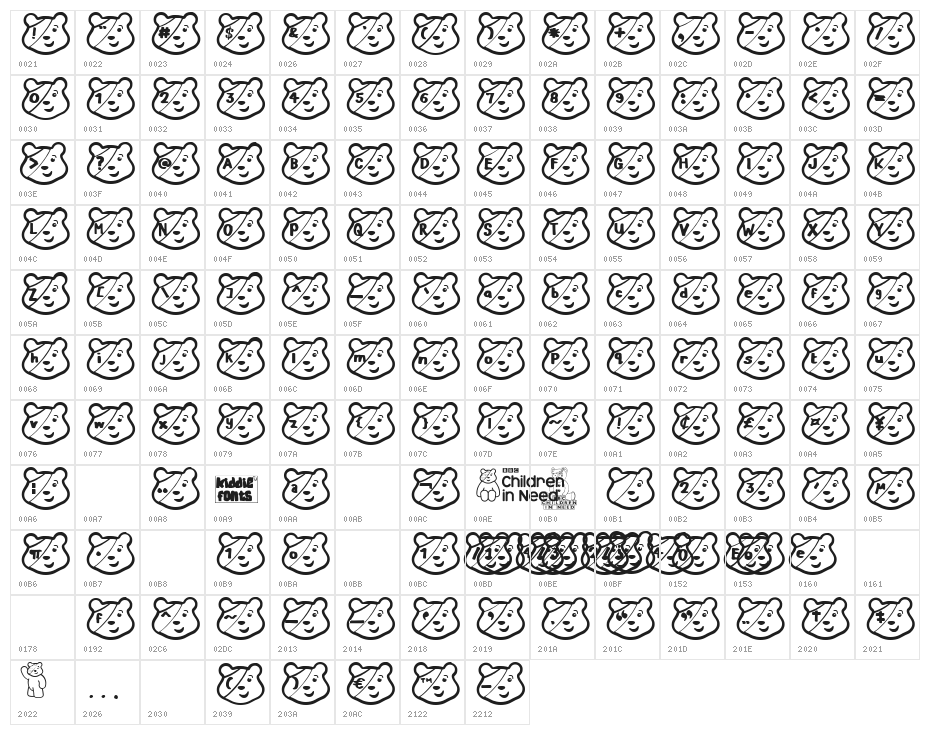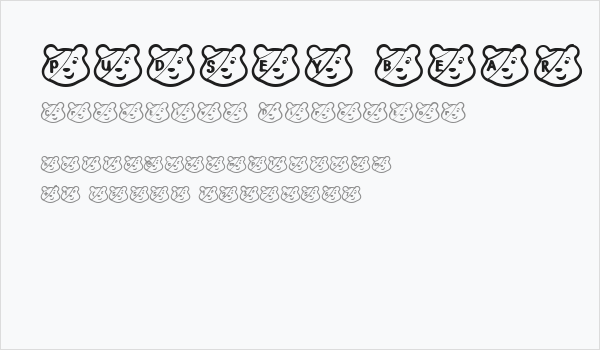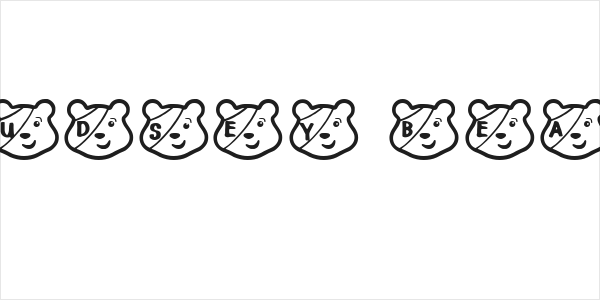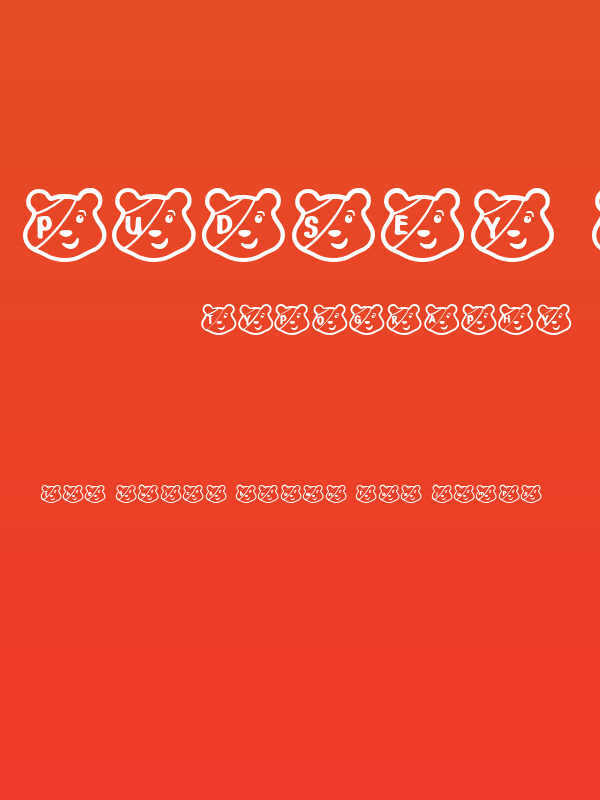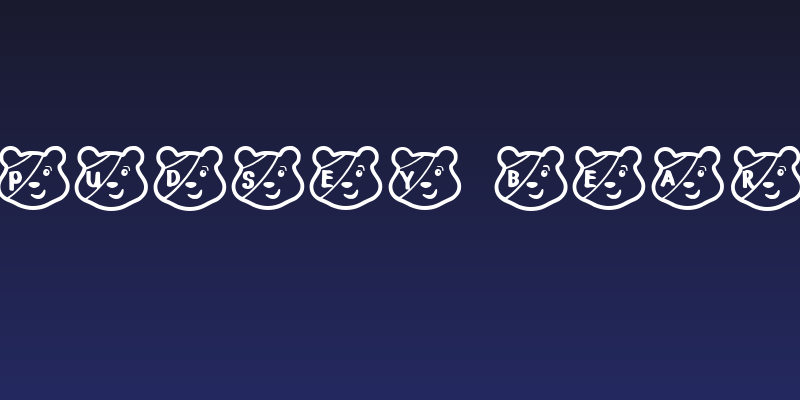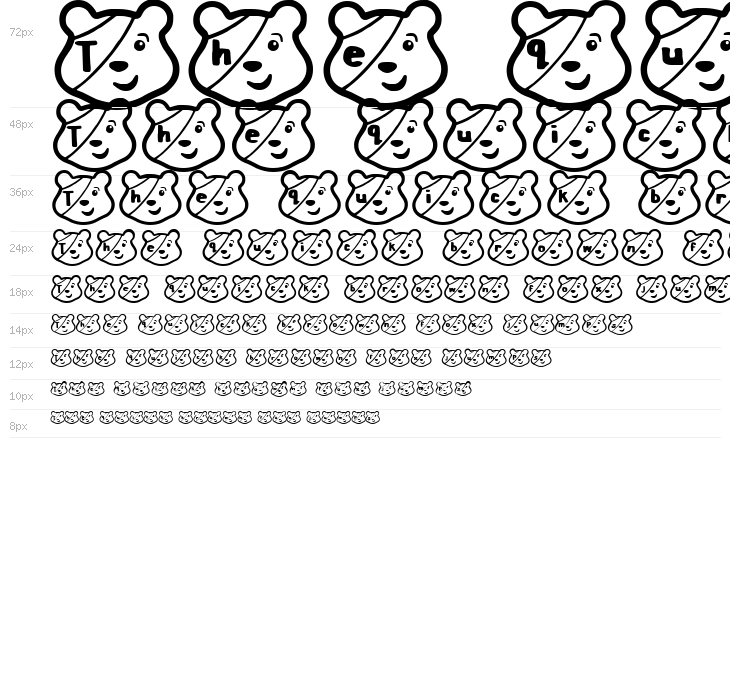
PUDSEY BEAR Font
PUDSEY BEAR Description
This playful and whimsical font features characters embedded within a bear face design, making it highly distinctive and engaging. Each letter and number is creatively integrated into the bear's face, adding a unique charm and personality to the text. The font is characterized by its decorative and illustrative style, which is perfect for capturing attention and adding a fun element to any design. The consistent bear motif throughout the alphabet and numbers ensures a cohesive and thematic appearance, ideal for projects aimed at children or those requiring a lighthearted touch.
| Use Case | Logos, Posters, Children's materials |
| Proposed Projects | Ideal for children's books, playful branding, educational materials, and themed party invitations. |